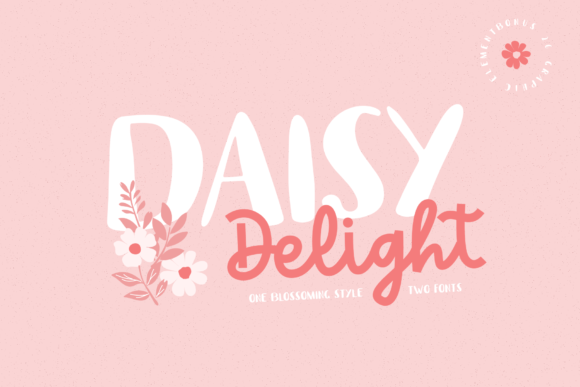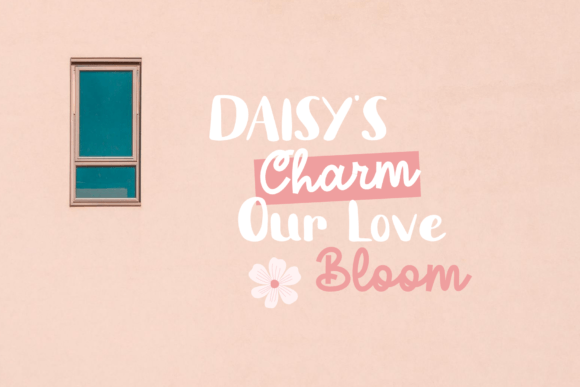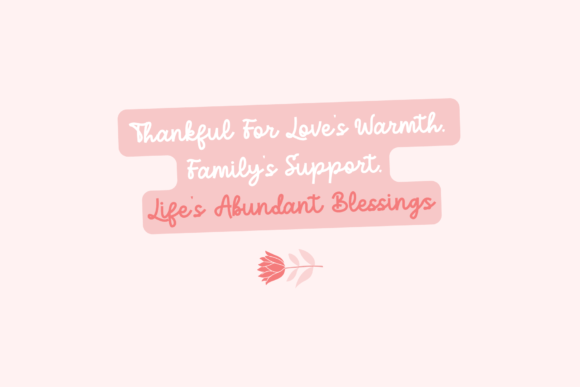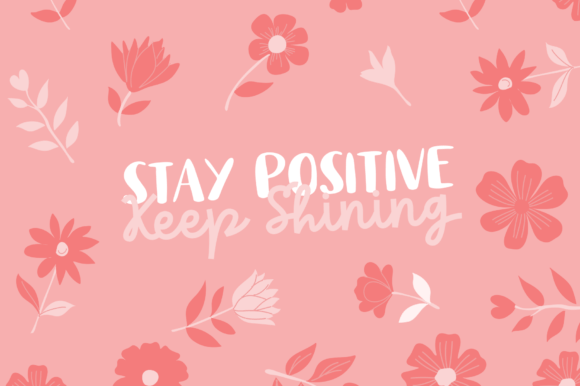
Daisy Delight Font
About the Daisy Delight Font
Welcome to the world of Daisy Delight Font, a typeface that will inspire your next great project. Spring into the charm of lush blooms with Daisy Delight Font Duo, an exquisite blend of simplicity and playfulness. Derived from the enchanting allure of daisies dancing in the springtime breeze, this wondrous duo presents an effortless handwritten font coupled with effervescent calligraphy. Echoing the vibrant spirit of spring, Daisy Delight Font Duo infuses your creative endeavors with a crisp, floral ambience.
Daisy Delight’s playful yet elegant nature makes it ideal for branding projects focused on feminine products, invitations, or short-form marketing materials like social media posts and packaging. Its handwritten style works exceptionally well in headlines and short text blocks, adding a touch of handcrafted charm. However, its delicate stroke weight makes it unsuitable for body text or lengthy paragraphs, and its informal feel is not ideal for UI elements requiring high readability.
Pairing Daisy Delight with a clean sans-serif like Open Sans for body text provides a balanced contrast between casual and professional. For a more sophisticated look, consider pairing it with a classic serif like Garamond or a slightly more modern geometric sans-serif like Montserrat. Scripts like Great Vibes can also create a cohesive look if used sparingly as accents.
The font’s overall personality is best described as friendly, approachable, and charmingly informal, making it a versatile option for projects seeking to convey a lighthearted, spring-like aesthetic.
Daisy Delight Font Usage Examples
Daisy Delight Font Example